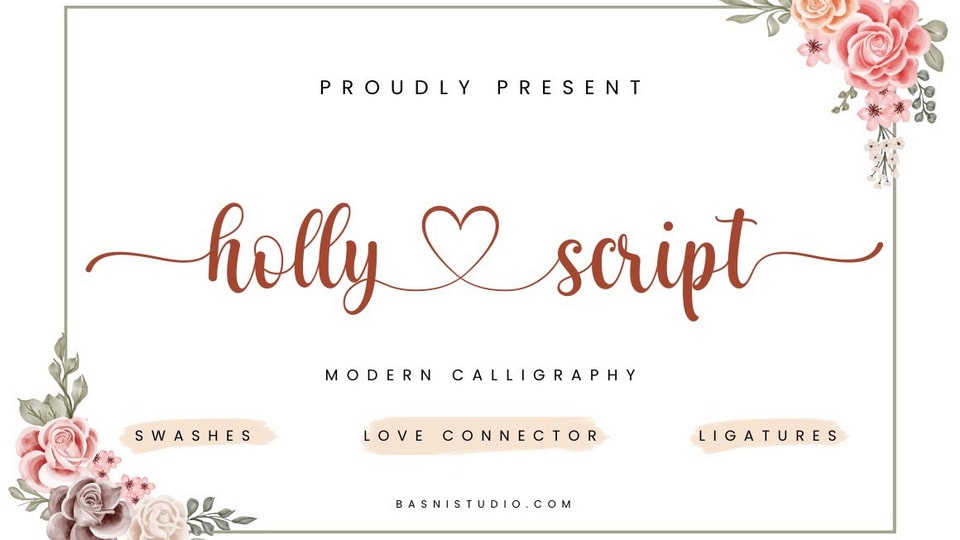
Download Holly Script font, a unique modern calligraphy font, created to complement your designs and make your designs beautiful and more attractive.